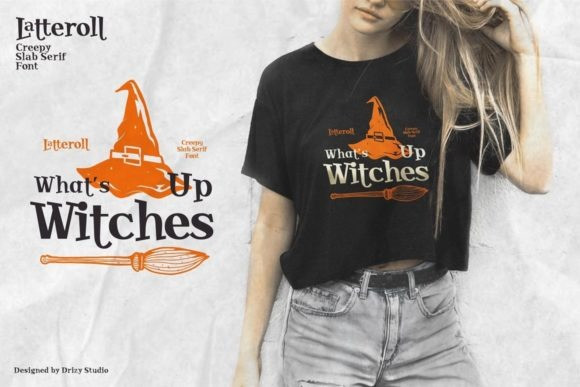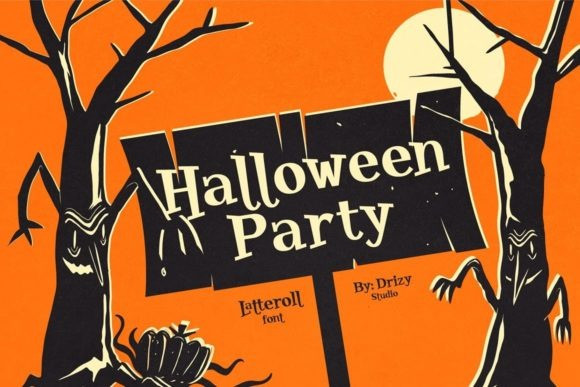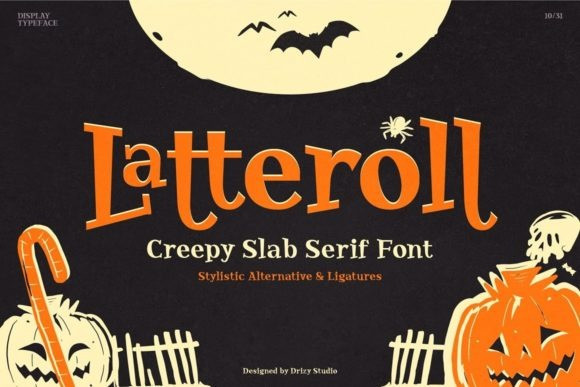
Latteroll Font
Latteroll Font is a creepy and whimsical serif font. Very suitable for inclusion in Halloween designs, spooky stationery, storybooks, and many other playful themes!